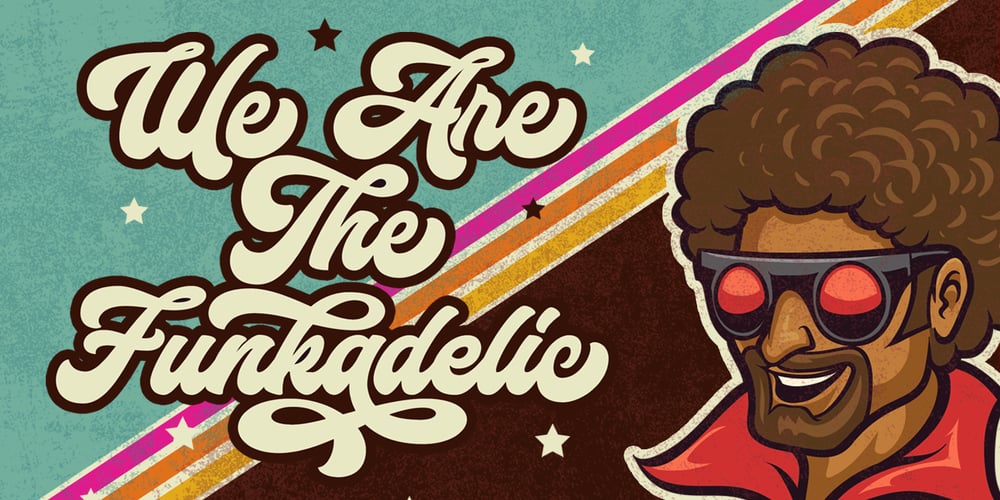
Rockadelic Font Family was designed by Bangkit Tri Setiadi and published by Blankids. Rockadelic contains 1 styles and family package options. Introducing a new retro bold script called Rockadelic. Bring back to the 70’s era Rockadelic inspired by posters and album covers of funk, disco and rockabilly music with bold and fun style. Rockadelic comes with OpenType features such stylistic alternates, stylistic sets, swash & ligatures and is good for logotype, poster, badge, book cover, t-shirt design, packaging and any more.